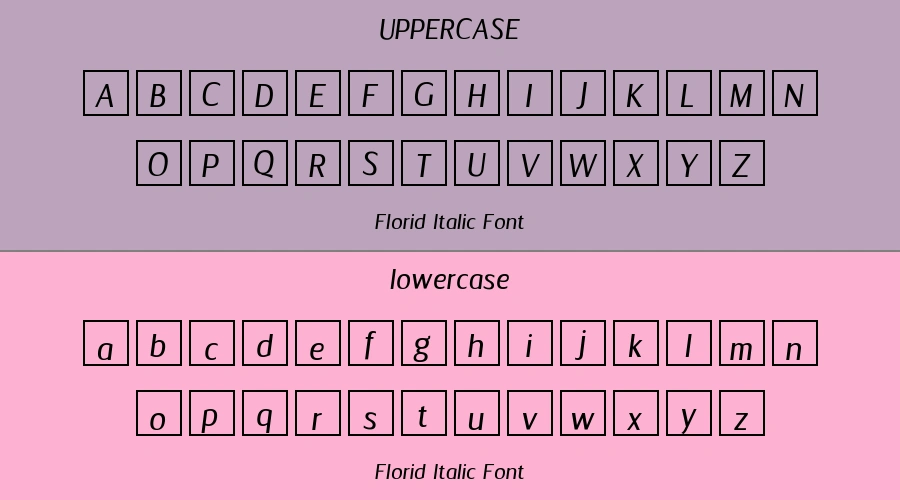
About Florid Italic Font
Florid Italic Font stands out for its distinctive combination of hand-drawn quality and personality. Ideal for ceremonial invitations, it provides the originality and manufacturing quality that professional projects demand. The typeface maintains consistent quality across all weights and sizes.
Key features include refined dramatic weight and practical stylistic alternates, enhancing typographic expression. In colophons applications, Florid Italic Font demonstrates exceptional archive stability. The letterfit and creative expression contribute to its distinctive character and professional appeal.